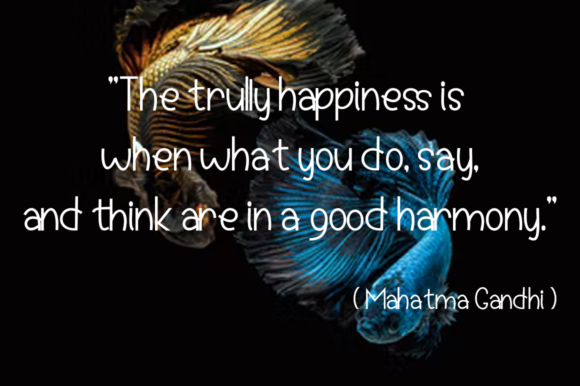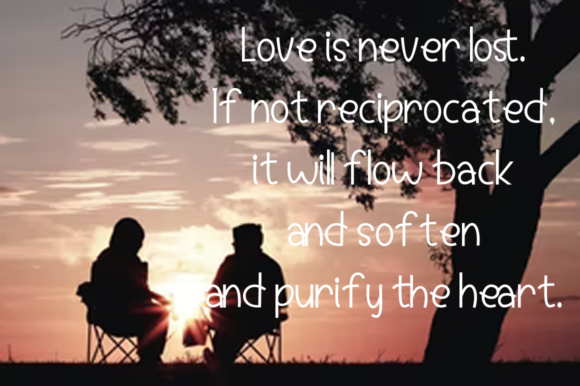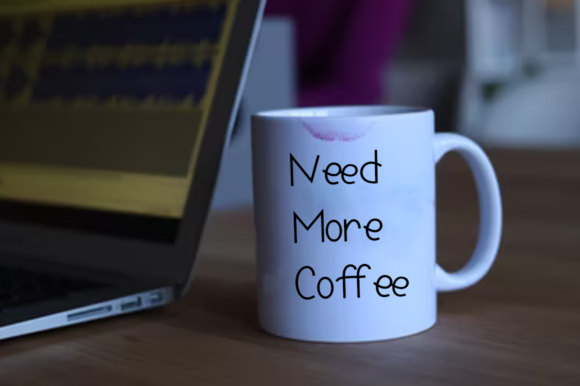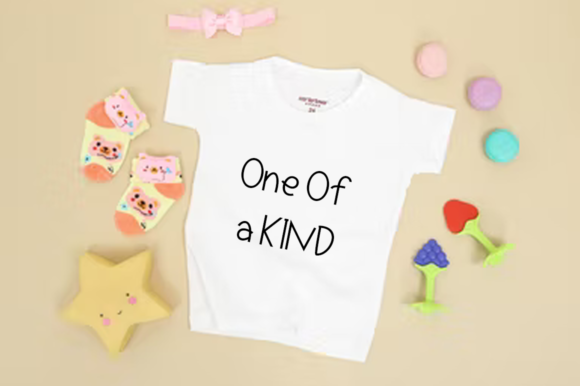
Introducing Amphibeus Font: Elevate Your Designs with a Cool and Modern Display Font
Are you tired of using the same old fonts in your designs? Look no further! Amphibeus Font is here to revolutionize your creative projects with its cool and modern display style. This stunning font is perfect for designers and crafters who want to add a touch of sophistication and elegance to their work. In this article, we’ll dive into the features and benefits of Amphibeus Font, and explore how it can take your designs to the next level.
What is Amphibeus Font?
Amphibeus Font is a modern display font that is designed to make a statement. Its unique and stylish lettering is perfect for creating eye-catching headlines, titles, and logos. With its clean and sleek lines, Amphibeus Font is ideal for a wide range of design projects, from branding and advertising to packaging and digital media.
Key Features of Amphibeus Font
- PUA Encoded: Amphibeus Font is PUA (Private Use Area) encoded, which means you can access all glyphs and swashes with ease. This feature allows you to unlock the full potential of the font and experiment with different styles and variations.
- Cool and Modern Design: Amphibeus Font boasts a cool and modern design that is sure to turn heads. Its unique lettering style is perfect for creating designs that are both stylish and sophisticated.
Benefits of Using Amphibeus Font
So, why should you choose Amphibeus Font for your design projects? Here are just a few benefits of using this amazing font:
- Stand Out from the Crowd: With Amphibeus Font, you can create designs that stand out from the crowd. Its unique and stylish lettering is sure to grab attention and leave a lasting impression.
- Enhance Your Brand: If you’re looking to elevate your brand, Amphibeus Font is the perfect choice. Its modern and sophisticated design is ideal for creating a strong brand identity.
Tips and Tricks for Getting the Most out of Amphibeus Font
Here are a few tips and tricks to help you get the most out of Amphibeus Font:
- Experiment with Different Styles: Don’t be afraid to experiment with different styles and variations of Amphibeus Font. Its PUA encoding makes it easy to access all glyphs and swashes.
- Pair it with Other Fonts: Amphibeus Font pairs perfectly with other fonts. Try combining it with a sans-serif font for a modern and stylish look.
- Use it for Headlines and Titles: Amphibeus Font is perfect for creating eye-catching headlines and titles. Use it to add a touch of sophistication and elegance to your designs.
In conclusion, Amphibeus Font is a cool and modern display font that is perfect for designers and crafters who want to elevate their designs. With its unique and stylish lettering, PUA encoding, and ease of use, Amphibeus Font is the perfect choice for a wide range of design projects. So why wait? Download Amphibeus Font today and start creating stunning designs that will leave a lasting impression!